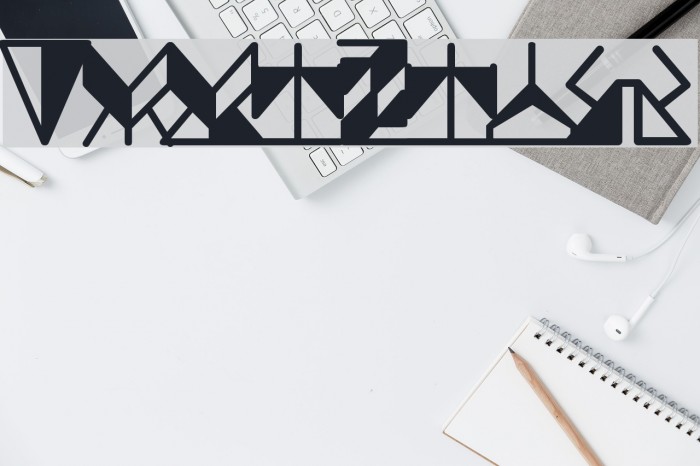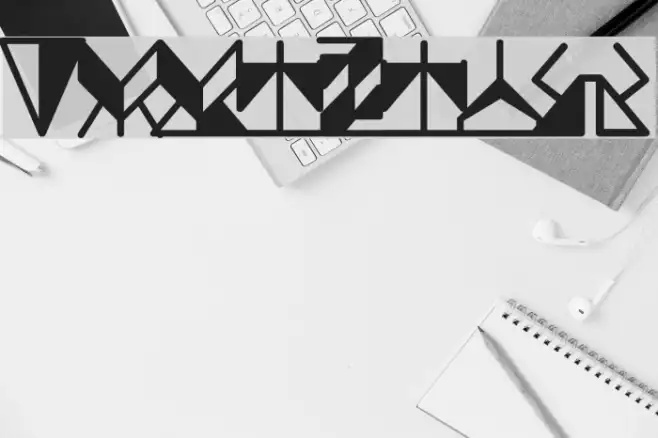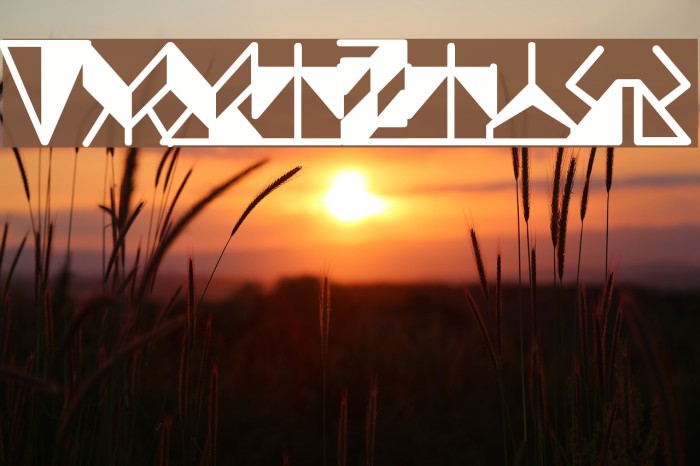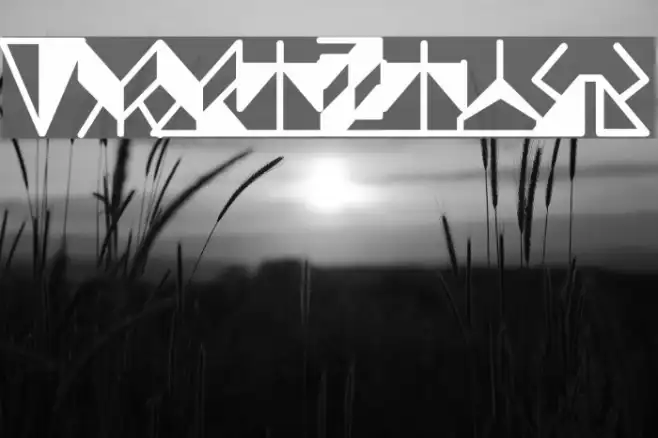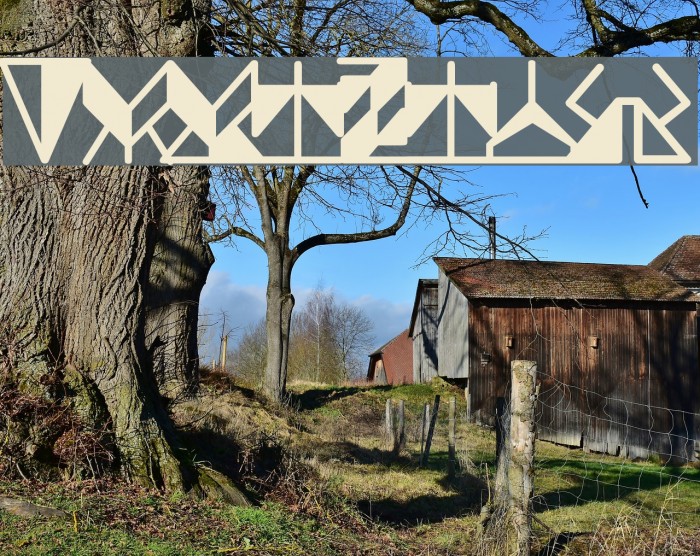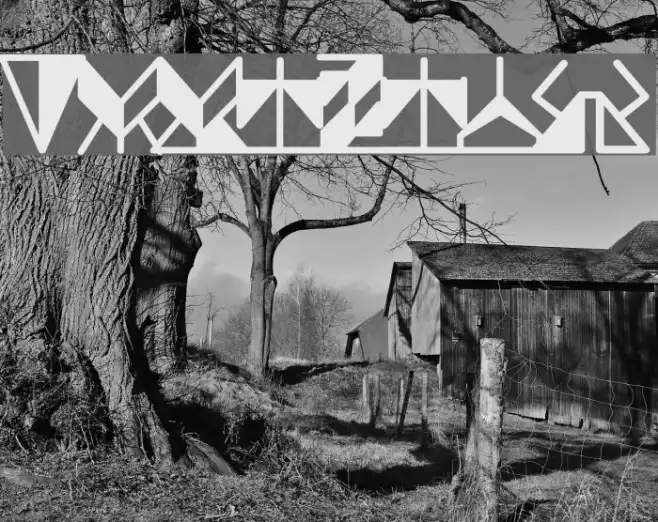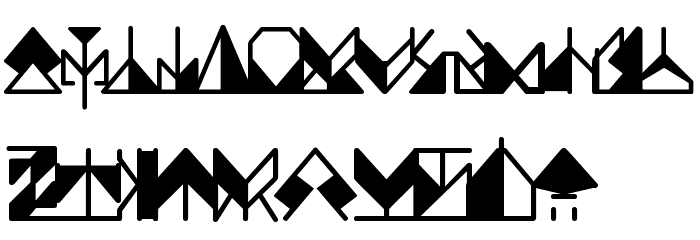
Ergonomix Font
Ergonomix Description
This font features a highly geometric and abstract design, characterized by its bold and angular shapes. Each character is constructed with a combination of triangles, lines, and rectangles, creating a futuristic and avant-garde appearance. The font lacks traditional curves, opting instead for sharp angles and straight lines, which gives it a unique and striking visual impact. The characters are tightly spaced, enhancing the compact and cohesive look of the text. This font is best suited for creative and artistic projects where a modern and unconventional style is desired.
| Width | Condensed |
| Overall Style | Futuristic |
| Use Case | Logos, Posters, Artistic Displays |
| Proposed Projects | Ideal for modern art projects, futuristic branding, and innovative design concepts. |